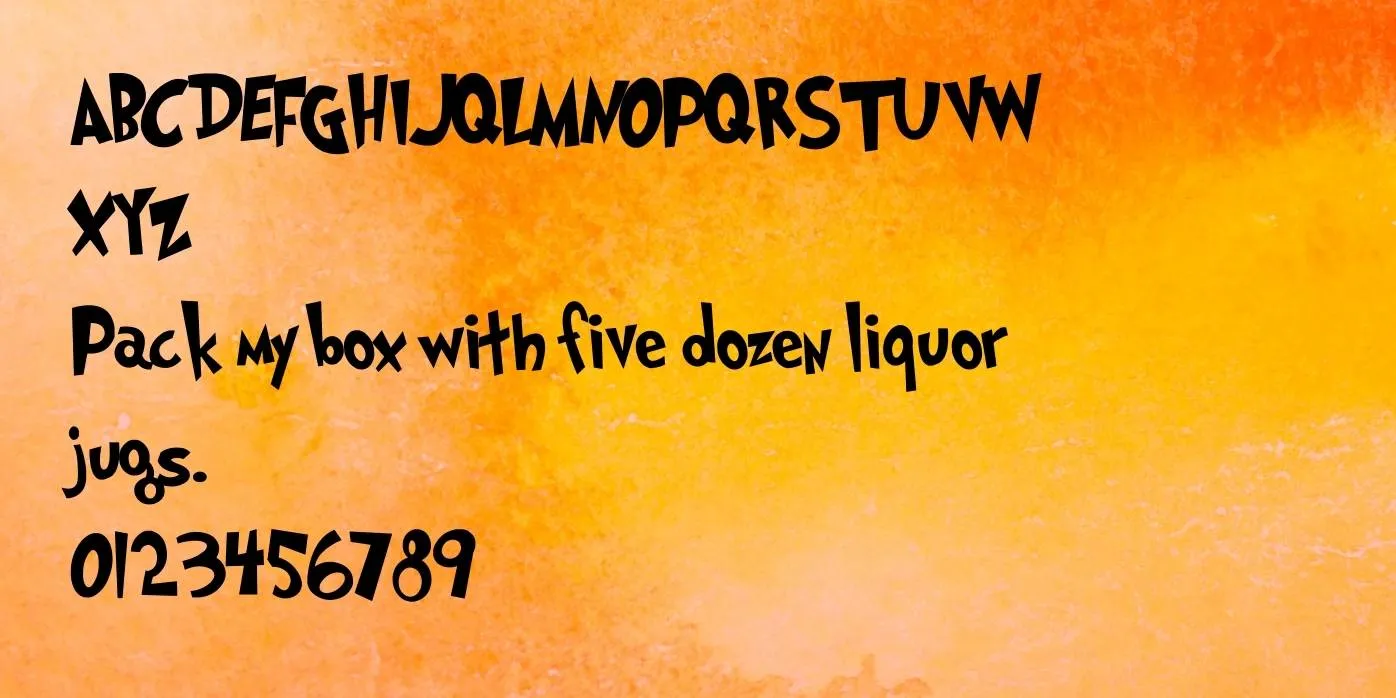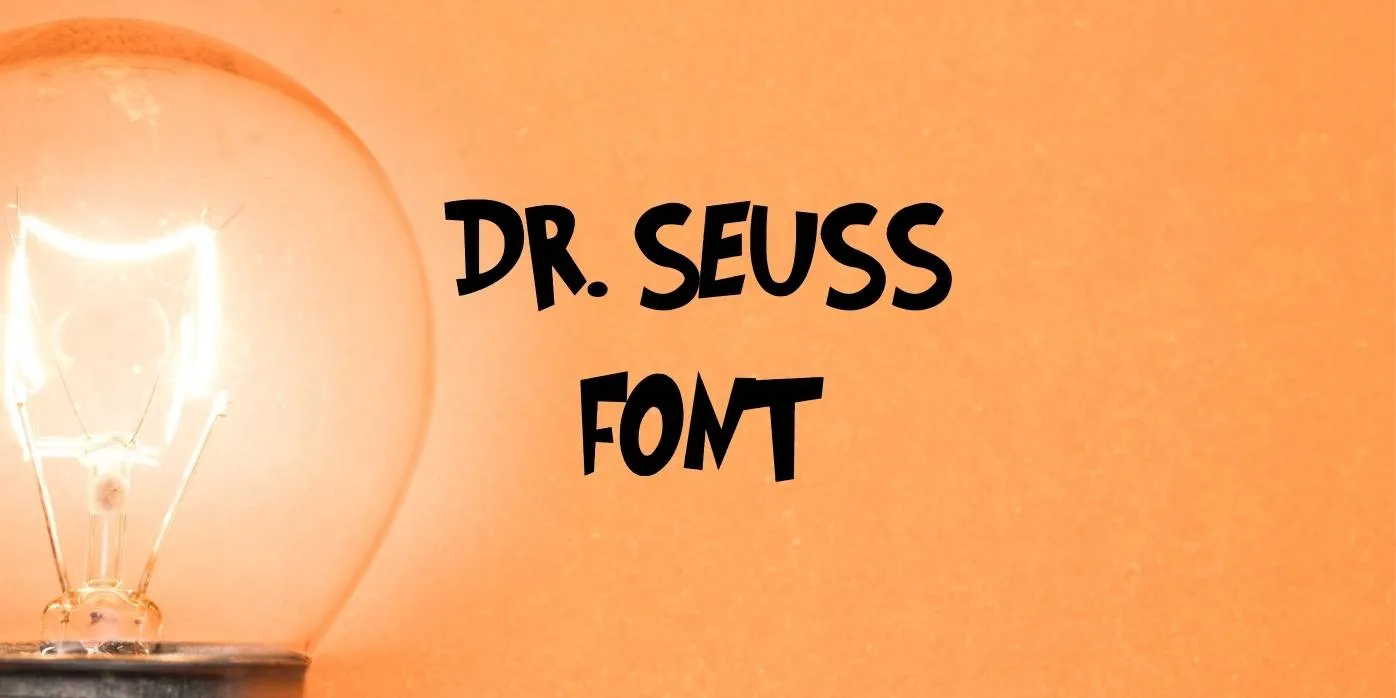
Dr Seuss Font
Dr. Seuss font is the most playful typeface with unnatural characters that belong to a Cartoon Font family. It is the best creation of TypeSETit, it has OTF features and is free for personal and commercial use. The font family has very funny Uppercase and Lowercase letters, uses symbols, and Numbers / Numerals also.
Its character has a pretty bold shape with a Scatter style. It supports many international languages for broad use. Every Opentype feature fonts are very functional for the users and you can create more font with manipulation of this typeface. Some people also know this typeface as Dr.
Soos Font that is available on different platforms. You may also generate this typeface from an online generator tool and manipulate your fun designs with pleasure.